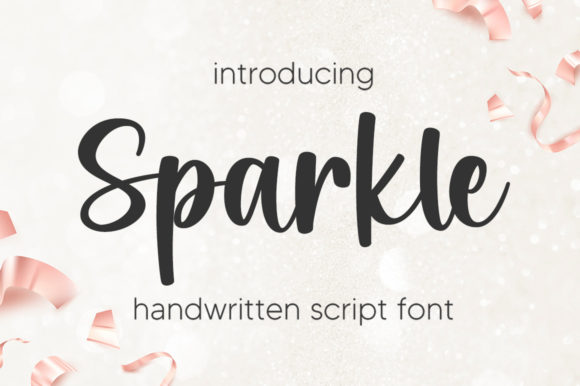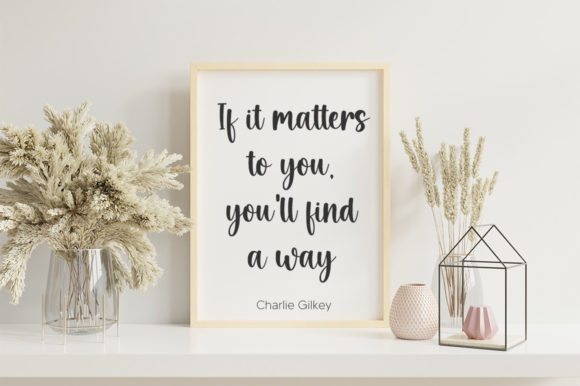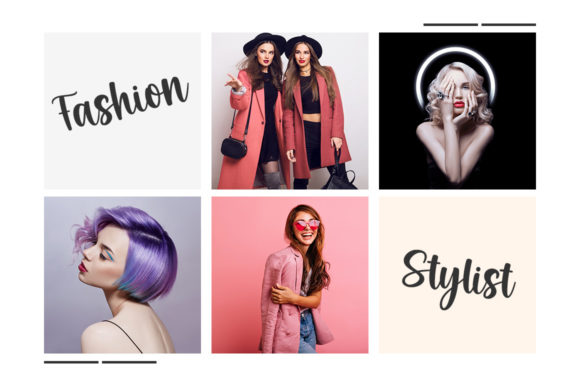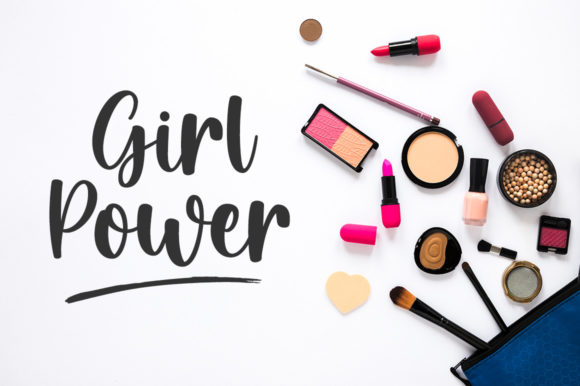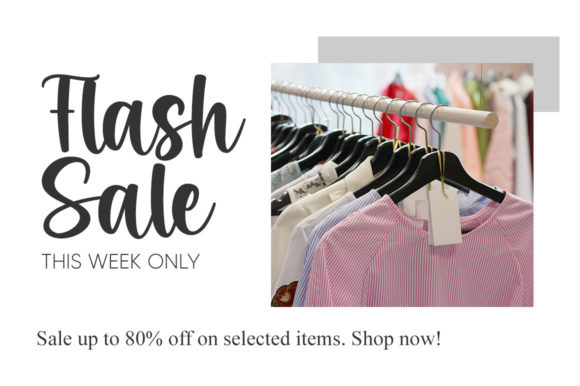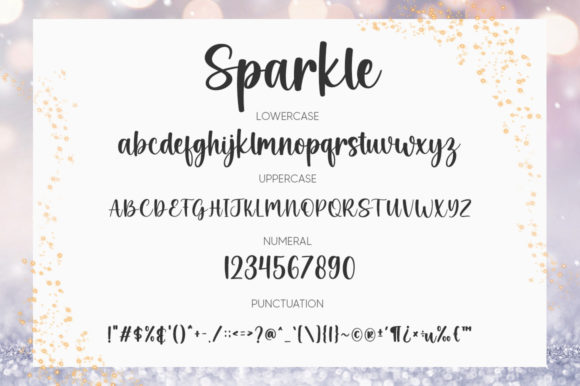
Sparkle is a fine, smart script font that emanates sophistication and elegance. Its neat alternates and ligatures make this font the ideal match for any project.
Sparkle Font